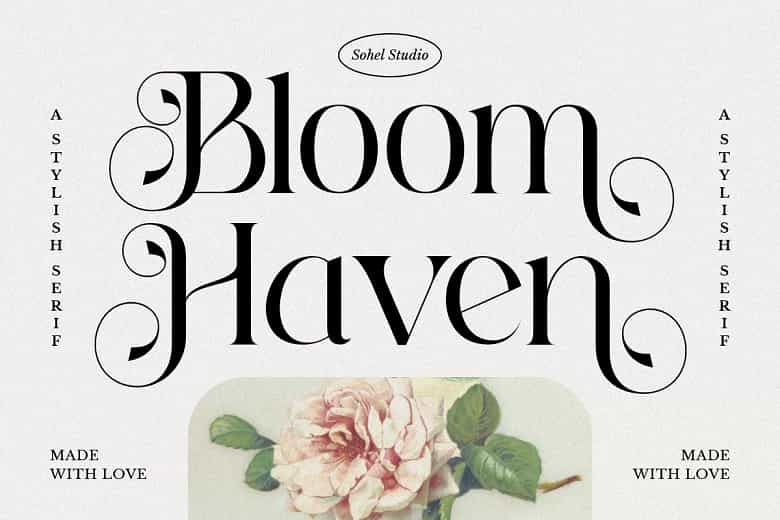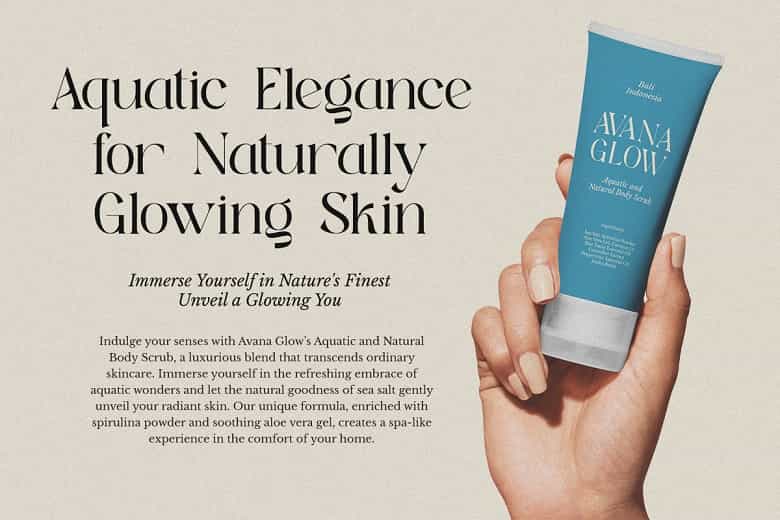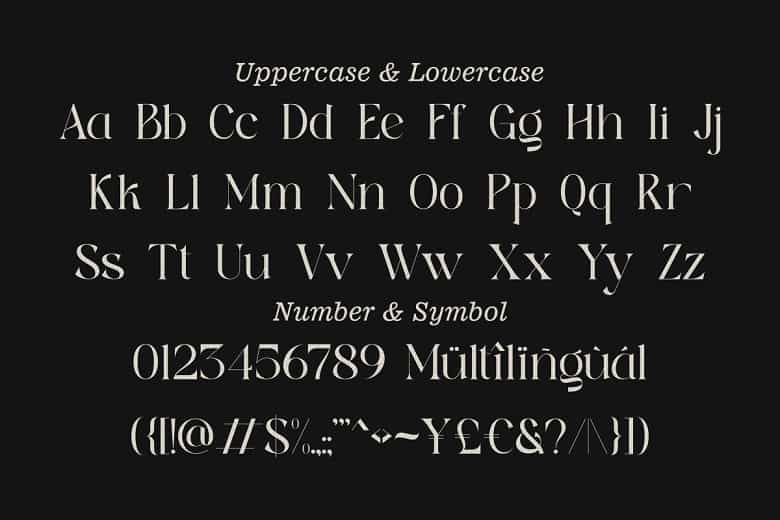
Bloom Haven is a stylish serif font suitable for giving a stylish and distinct look to your work. Due to its curved serifs and beautiful shapes, Bloom Haven will be useful for designers who are seeking for a font that reflects sophistication and style. It includes special alternates and ligatures to give you all that you need to create gorgeous and striking typography.